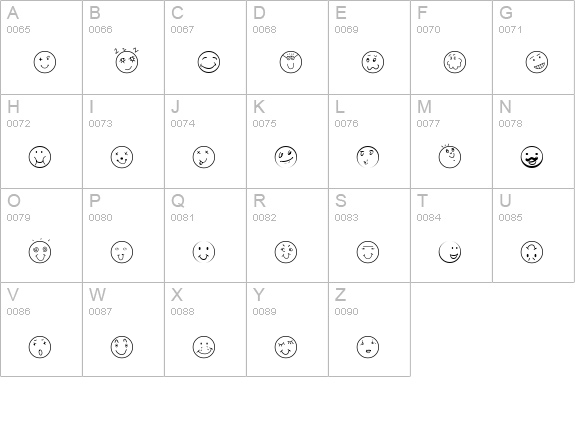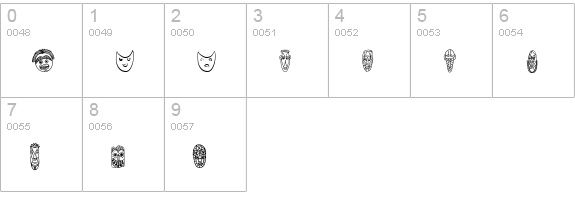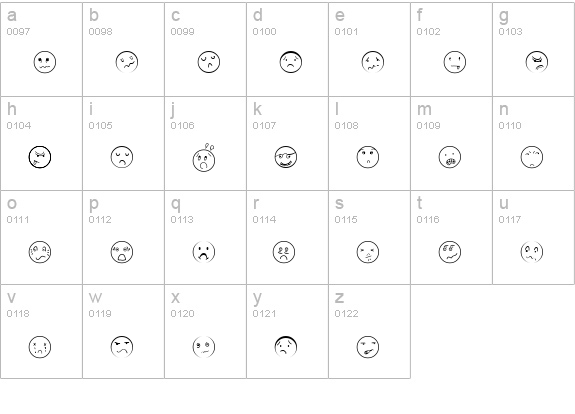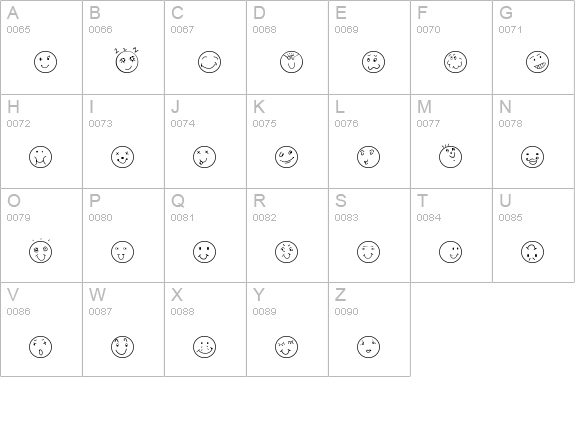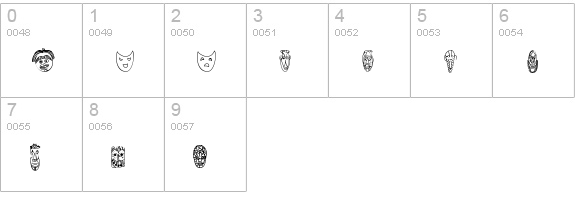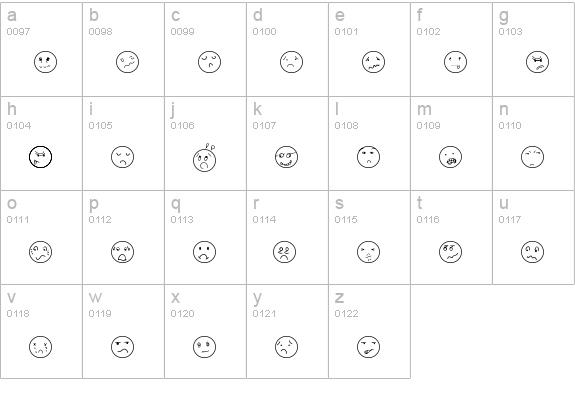
AbcFaces Font Details
Introducing AbcFaces font, a versatile and eye-catching typeface that is sure to elevate your design projects to the next level. With its unique blend of modern and playful elements, AbcFaces offers a fresh and contemporary aesthetic that is perfect for a wide range of applications. This font features a sleek and stylish design that is both elegant and approachable, making it ideal for branding, logos, headlines, and more. The clean lines and smooth curves of AbcFaces lend a sophisticated touch to any design, while its bold and dynamic presence ensures that your message will always stand out. Best of all, AbcFaces is available for free download at FontsMarket.com, allowing you to access this stunning font without any cost. Whether you're a seasoned designer looking to add a new font to your collection or a beginner in need of a versatile typeface, AbcFaces is sure to impress with its quality and style. Don't miss out on the opportunity to enhance your designs with AbcFaces font – download it for free today and let your creativity soar!